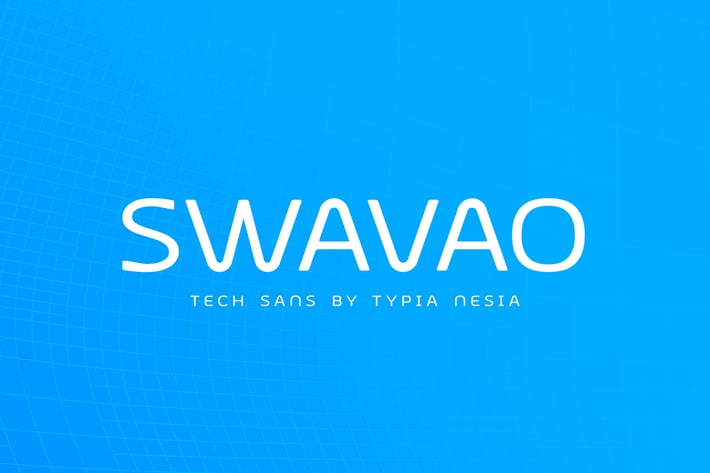
Swavao Futuristic Modern font - Techno Sans Serif
Swavao Futuristic Modern font - Techno Scifi Sans Serif - Science Fiction Gadget Tech / Technology Display Font.
Swavao is Futuristic Tech Sans Serif Font is perfect for your up coming projects. Such as logo branding, editorial design, stationery design, esport design, 80s retro design, game industry, sport racing, techno / gadget brand, digital music poster, apps startup design, modern advertising design, art quote, home decor, book/cover title, special events and any more.